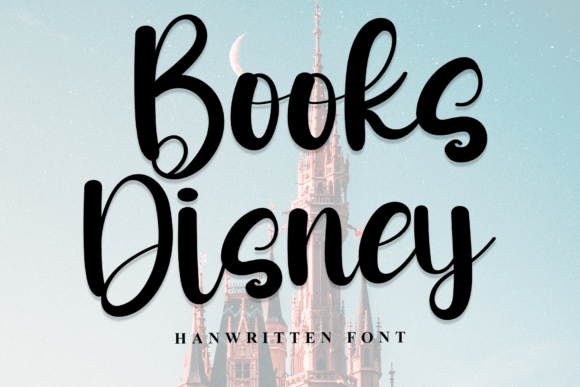
Introducing Books Disney Font, the perfect choice for all your branding needs. Crafted with utmost care by PiPi Creative, this exquisite handwritten font will elevate your projects to new heights. With its blend of classic calligraphic influences and modern appeal, Books Disney is a true favorite among designers and creatives.
Immerse yourself in the world of Books Disney, where elegance and sophistication meet contemporary charm. This font family, with its captivating script style, adds a touch of magic to any design. Whether you're creating a logo, packaging, or social media graphics, Books Disney will make your brand stand out from the crowd.
Unlock a world of possibilities with Books Disney Font. Its versatility allows you to create stunning designs that capture attention and leave a lasting impression. From luxurious wedding invitations to eye-catching advertisements, this font effortlessly adapts to any project, making it the go-to choice for designers seeking perfection.
With its rich collection of characters and glyphs, Books Disney offers endless creative opportunities. Express your emotions, tell captivating stories, and evoke a sense of nostalgia with the varied styles and decorative elements available. Let your imagination run wild as you effortlessly weave magic into your designs.
But Books Disney isn't just about aesthetics; it's about creating an emotional connection. This font adds a unique personality to your brand, evoking feelings of elegance, refinement, and style. It sparks joy and resonates with your audience, leaving a lasting impression that keeps them coming back for more.
Don't settle for ordinary fonts when you can have extraordinary. Books Disney Font is the key to unlocking a world of endless possibilities. Join the league of successful brands that have harnessed the power of this font to captivate their audience and leave a lasting impact.
Experience the magic of Books Disney Font today and let your creativity soar to new heights. Elevate your brand, captivate your audience, and make a statement that resonates with all who see it. Choose Books Disney and embark on a journey of extraordinary design possibilities.